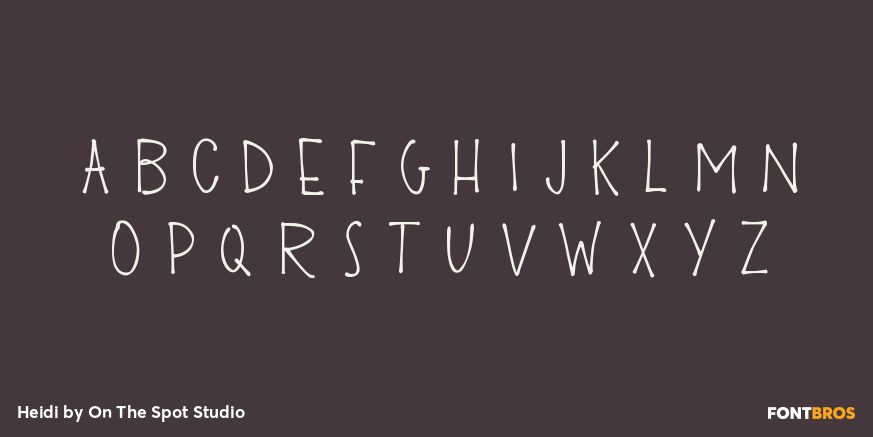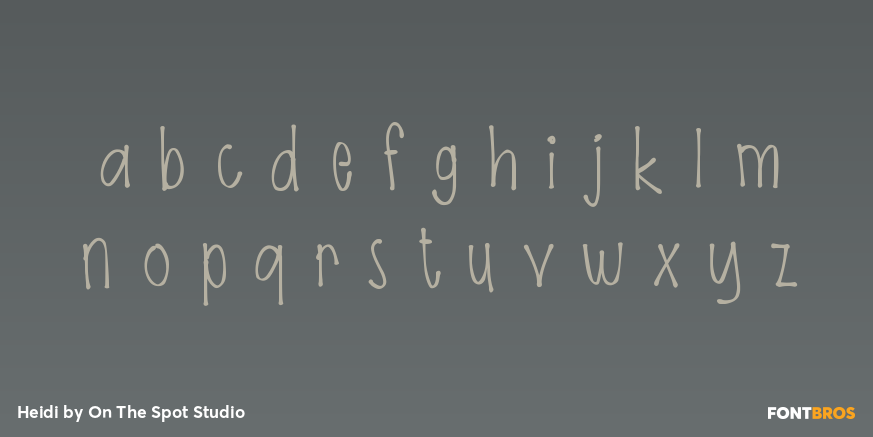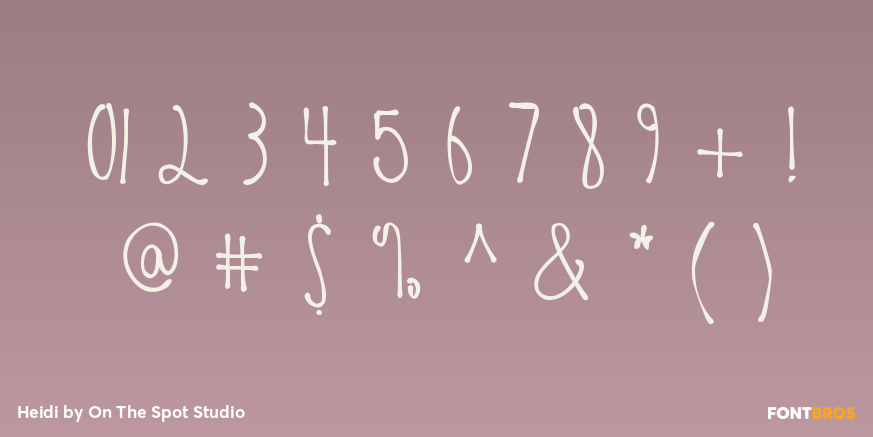
Heidi
Font Family by On The Spot Studio
Heidi is a cute quirky journaling font great for your prints, logos, cards, templates and more! Commercial use ok :)